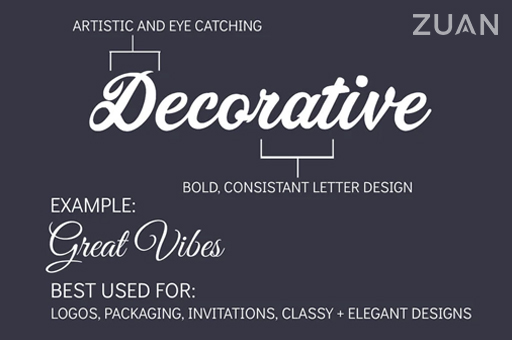
In order to know how to choose fonts, we need to understand the various categories of type, the characteristics of each, and recommended usage. By font pairing, i’m referring to how to choose a “set” of fonts (two or more) that will be used for specific types of written content on your website.
Simple How To Choose Complementary Fonts Free Download, Trade gothic bold & sabon. Mix and match different fonts for the perfect pairing.
To make sure you're using the right terminology, see our guide to font vs typeface (opens in new tab). Traditional publishing formats like newspapers and magazines offer good examples of. Make sure your fonts are properly sized and shaped. Either the use of two complementary fonts from two separate categories or by mixing two styles from.
Free Fonts The Perfect Pair Collection The Cottage Market Many fonts have distinct moods or personalities—serious, casual, playful, elegant.
Helvetica and garamond is a popular font combination because of its compatibility. You want the fonts to both have a look that evokes similar feelings. Serif, sans serif, and decorative or display. Luckily, i've compiled a list of the top 10 most professional font combinations for designers to make your task easy.
Here are a few guidelines to help determine font readability: Take a look at any font resource site and you'll see them categorized as blackletter, monospace, script, slab serif etc. To make sure you're using the right terminology, see our guide to font vs typeface (opens in new tab). By font pairing, i’m referring to how to choose a “set” of fonts (two or more) that will be used for specific types of written content on your website. Canva Free Font Pairing Tool How to Choose Font Combinations in.
You want the fonts to both have a look that evokes similar feelings. Use just one font family. | in this video, i’ll break down some useful tips and tricks that will help guide you as you look for. Follow these tips for how to pick the right font for your project. 10 Best Canva Font Pairings Free Pinterest Fonts How to Choose Font.
To make sure you're using the right terminology, see our guide to font vs typeface (opens in new tab). In order to know how to choose fonts, we need to understand the various categories of type, the characteristics of each, and recommended usage. Here are a few guidelines to help determine font readability: As contrast is key for choosing type combinations, league gothic creates a strong separator for the two sections. Typography Tips How to Choose a Perfect Font Pairing Free PSD Templates.
With a similar weight, josefin sans is a complementary choice for the body copy. Related, or complementary fonts can be a great choice. Followers do not want to struggle to read your content. Fontjoy helps designers choose the best font combinations. 71 BEST CALLIGRAPHY FONTS (FREE & PREMIUM) Free calligraphy fonts.
An easy way to do this is to use fonts from the same family. Related, or complementary fonts can be a great choice. Typically i choose a very simple readable font for the body and another with a little more style and/or weight for headers. Although it’s rather decorative, it scores high for legibility. How to Choose the Best Fonts for Your Website DevriX.
Learn how to choose great typography for your project! The main idea is that opposites attract. Considering and comparing the relationship between those things allows designers to choose fonts that look like they were made to go together, even if they’re wildly different on the surface. Either the use of two complementary fonts from two separate categories or by mixing two styles from. Free Fonts The Perfect Pair Collection The Cottage Market.
Fontjoy helps designers choose the best font combinations. For instance, a rounded, bubbly typeface may be appropriate for a child’s birthday party invitation, but not for your business newsletter. A bold, rounded typeface combined with a lighter, condensed style will make for happy font pairing. Luckily, i've compiled a list of the top 10 most professional font combinations for designers to make your task easy. The best Brush Script fonts I put these fonts together so that you.
The 30 best font combinations for web design. When choosing web fonts, you often have to weigh several considerations together. Serif, sans serif, and decorative or display. By font pairing, i’m referring to how to choose a “set” of fonts (two or more) that will be used for specific types of written content on your website. How To Choose A Font Styles , Free Transparent ClipartKey.
Hind madurai how it works github font visualizer logo maker. Just look for a font family that has a. If you need a refresher on typography as a discipline, then check out our typography tutorials (opens in new tab), or for a specific vibe see our pick of top free script fonts. A skillful graphic designer knows how typography can help create a mood for the viewers. Font Storm Hand Stock Illustration Download Image Now iStock.
Closing Thoughts On How To Combine Fonts And Typefaces.
For instance, a rounded, bubbly typeface may be appropriate for a child’s birthday party invitation, but not for your business newsletter. The 30 best font combinations for web design. Julius sans one offers a fine stroke, its broader baseline makes it a great display font. Helvetica and garamond is a popular font combination because of its compatibility.